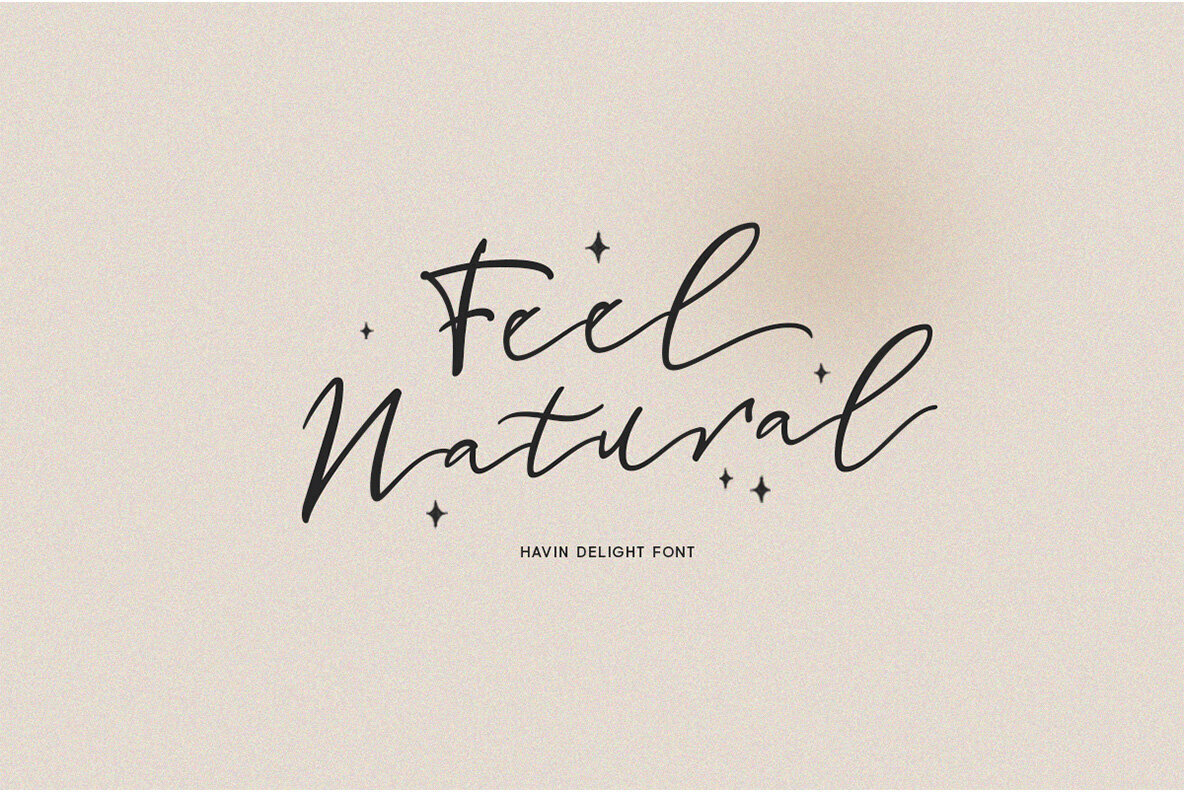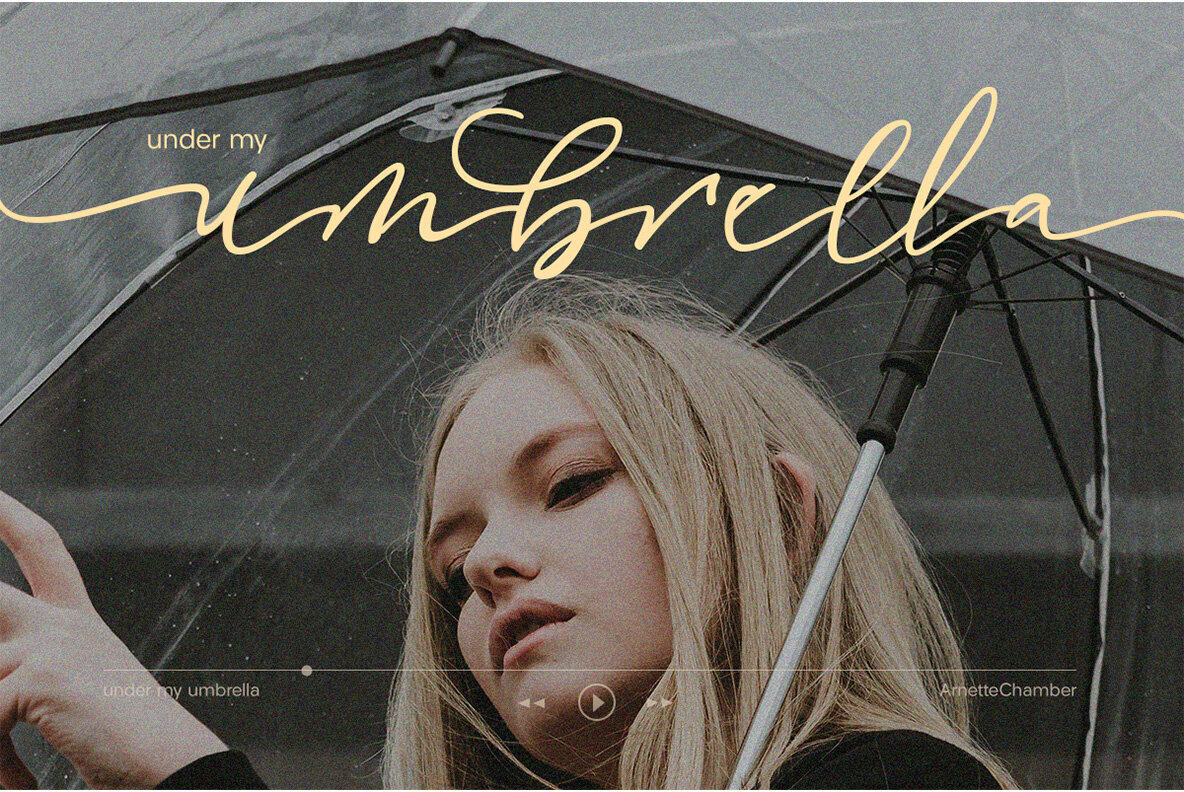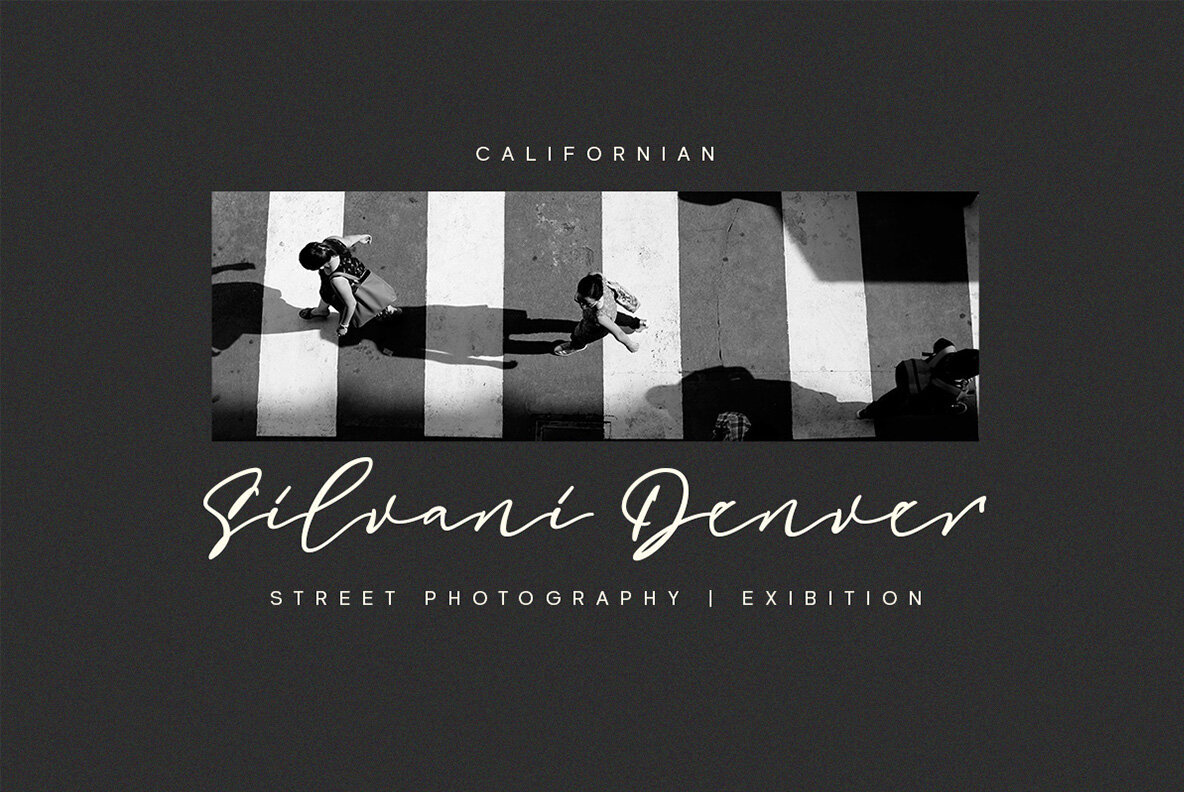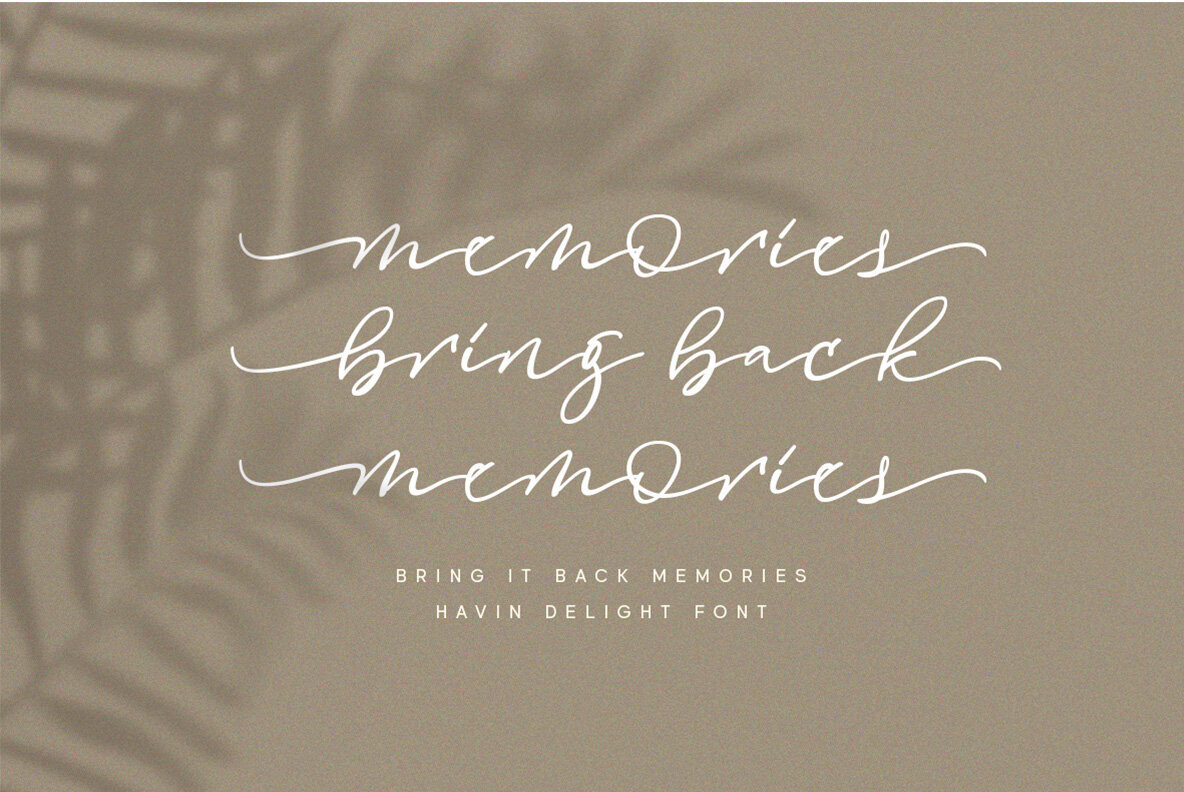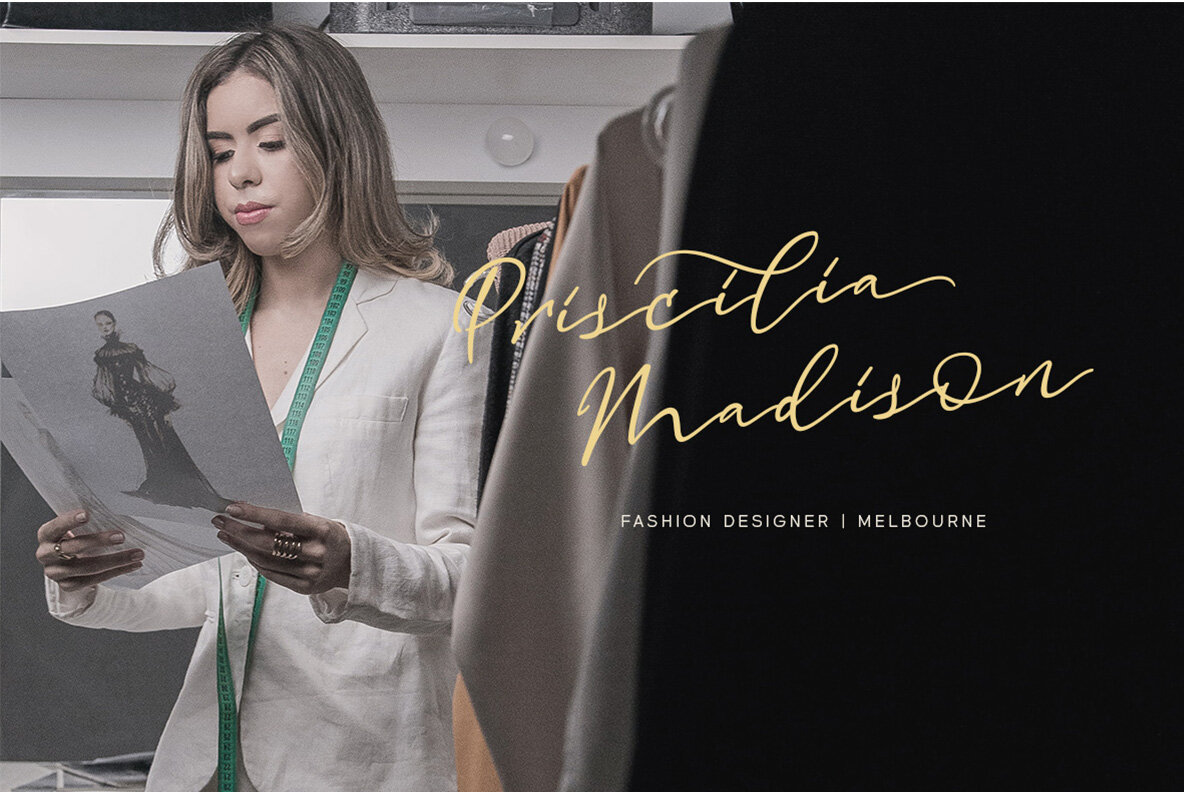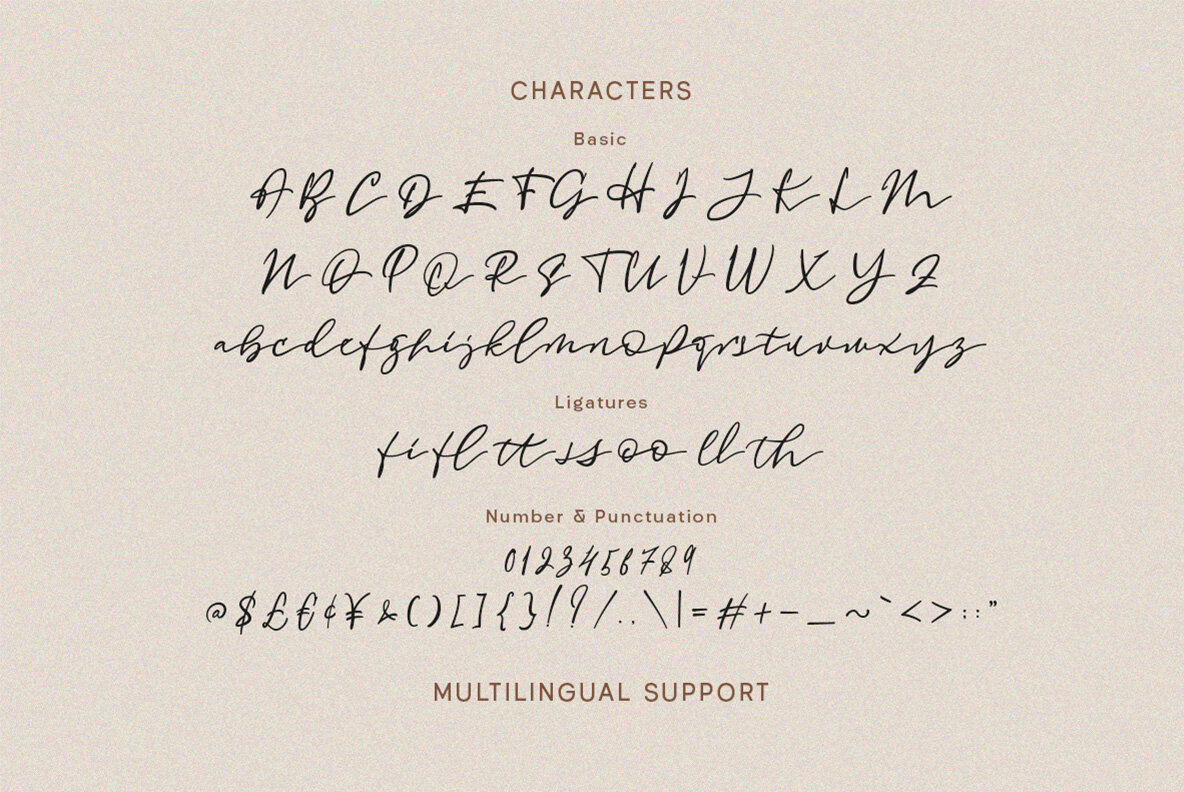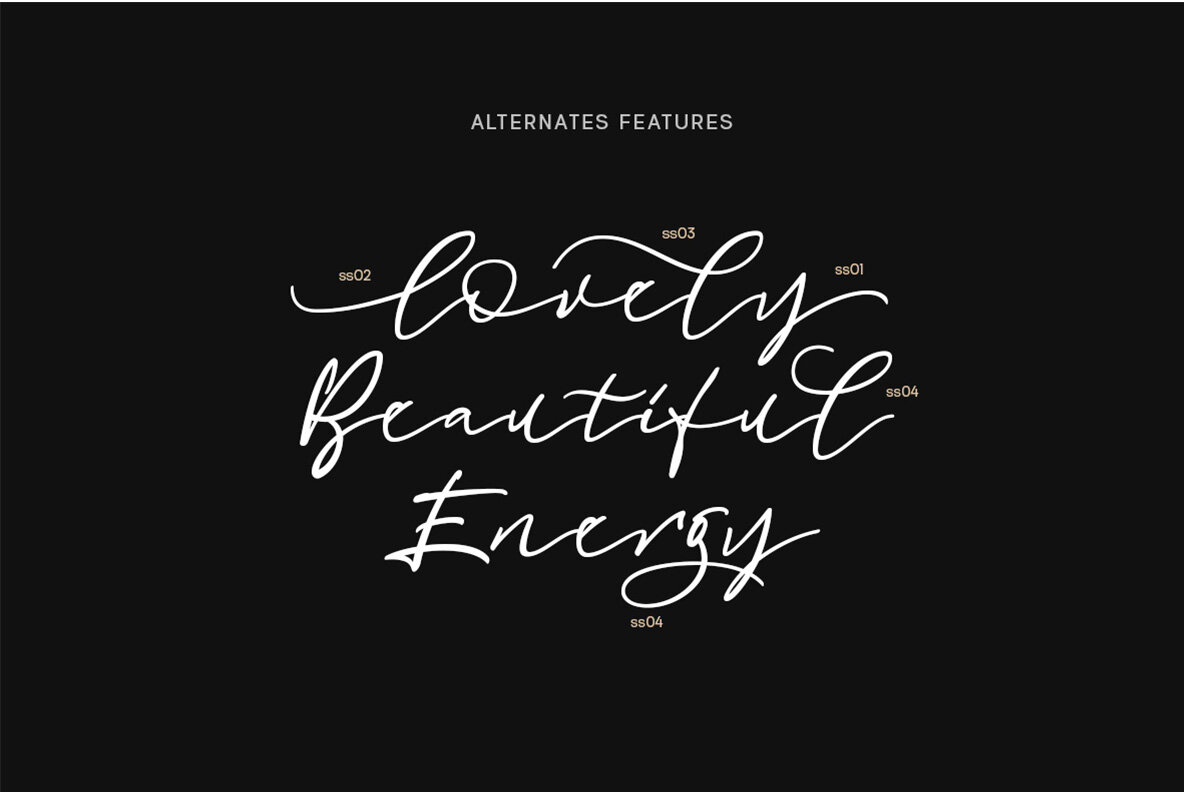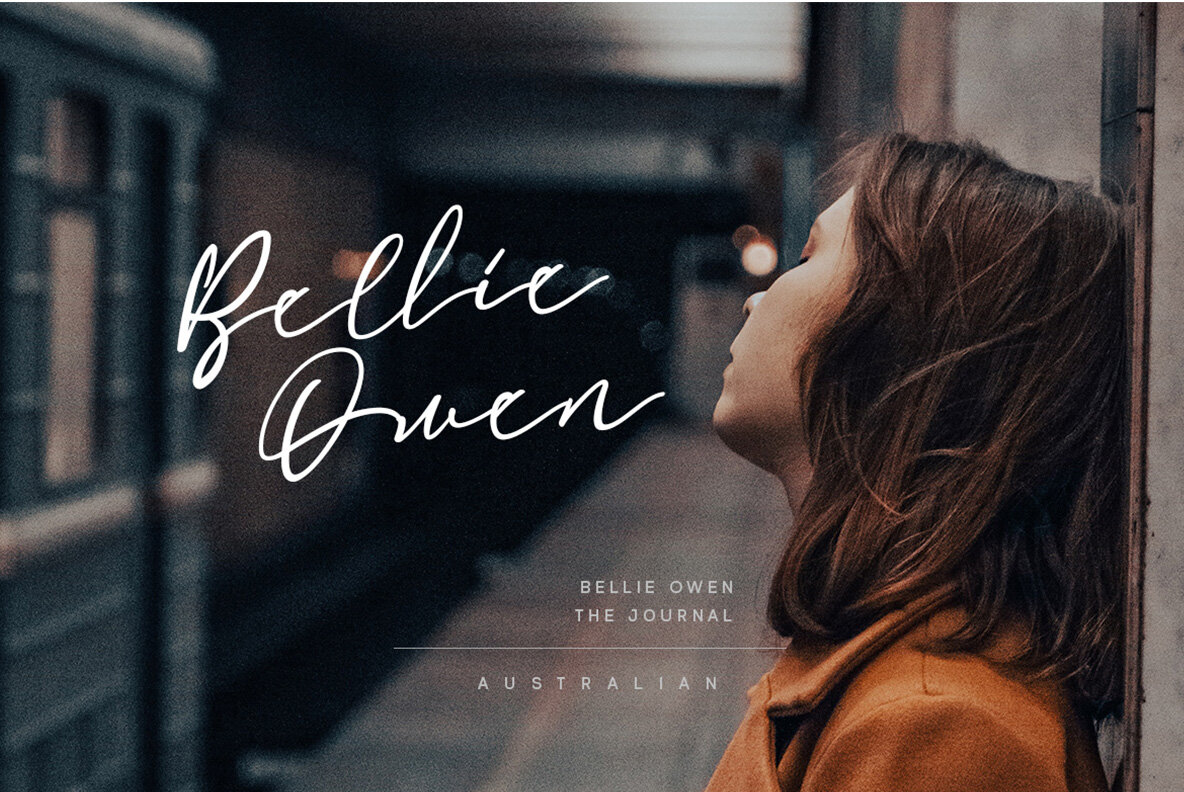
Havin Delight Font
Havin Delight Regular
Introducing Havin Delight, a beautiful hand-written script font perfect for logos, invitations, labels, magazines, books, and other formal uses. This font features uppercase and lowercase letters, numbers and punctuation, multilingual support, alternates and ligatures, and is PUA encoded for easy installation and use.